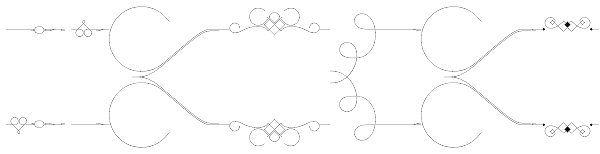
Port
Detailed guided tour available here. Port is an experimental Didone typeface with a modern twist, inspired in the well known forms of typography masters such as Bodoni and Didot and the exuberance and elegance of calligraphy typefaces. Port melds...
Port Ornaments
Port Regular
Port Medium
Port Medium Decorated
Port Regular Decorated
Port Words